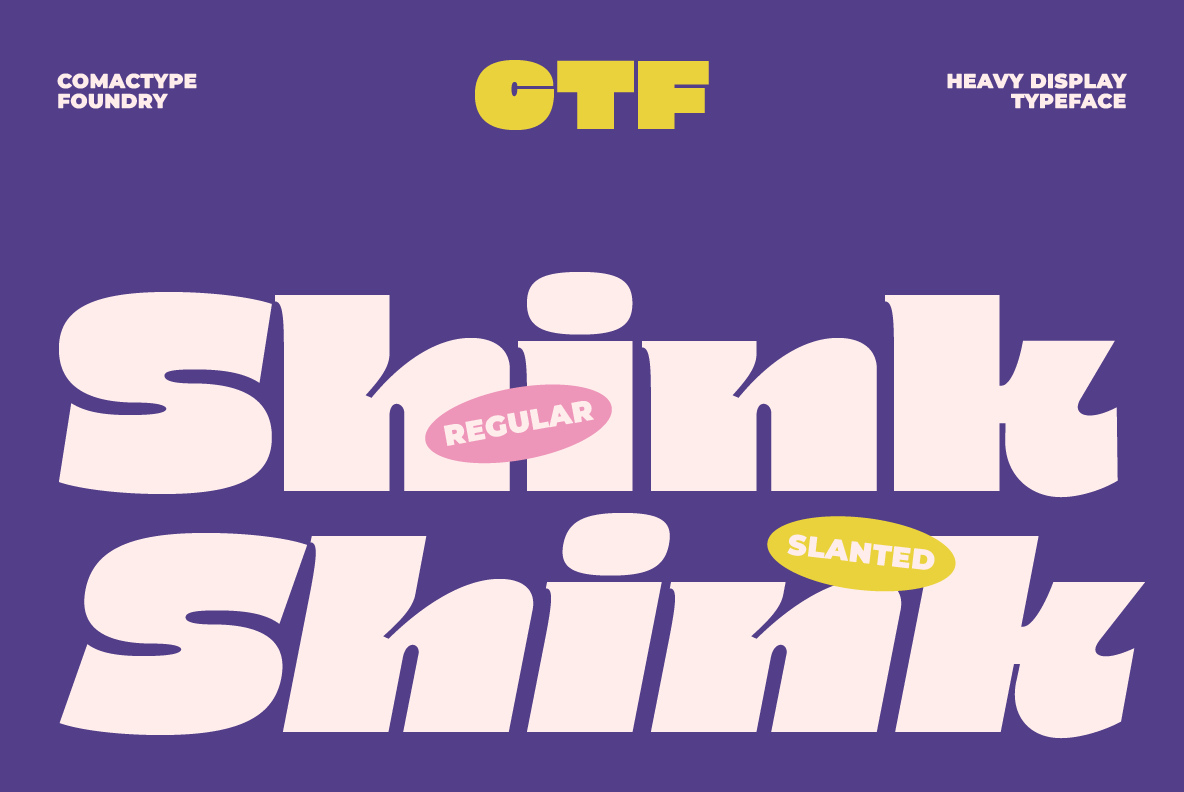
Shink - Heavy Display Typeface
Shink is a bold display typeface that combines retro charm with a playful contemporary attitude. Designed with chunky letterforms, soft curves, and distinctive geometric details, it delivers a strong visual impact while maintaining a friendly and approachable personality. Its unique character shapes and exaggerated proportions create a memorable look that instantly grabs attention in headlines, branding, packaging, posters, album covers, and social media graphics.
Inspired by vintage pop culture, music posters, and funky typography from the 70s and 80s, Shink brings a nostalgic yet fresh aesthetic to modern design projects. The typeface includes both Regular and Slanted styles, allowing designers to create dynamic compositions with added movement and energy. Every character is carefully crafted to balance boldness, readability, and visual rhythm, making it ideal for large-scale display use.